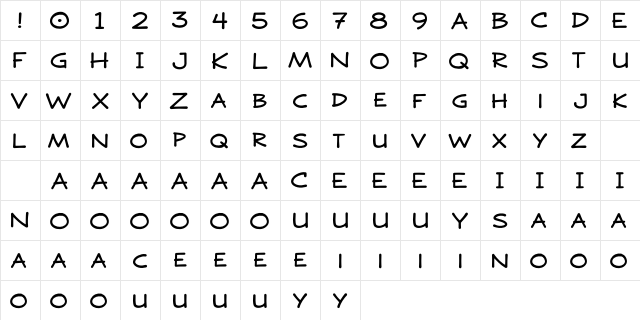
DOJO PEN MASTER DEMO Regular Font Preview
DOJO PEN MASTER DEMO Regular
Design Context for DOJO PEN MASTER DEMO Typeface
DOJO PEN MASTER DEMO offers clean, dependable letterforms without strong stylistic allegiance, making it a practical choice for designers who need flexibility.
Pro Tip: Use DOJO PEN MASTER DEMO in both headline and body roles to test its range before committing to a single application.